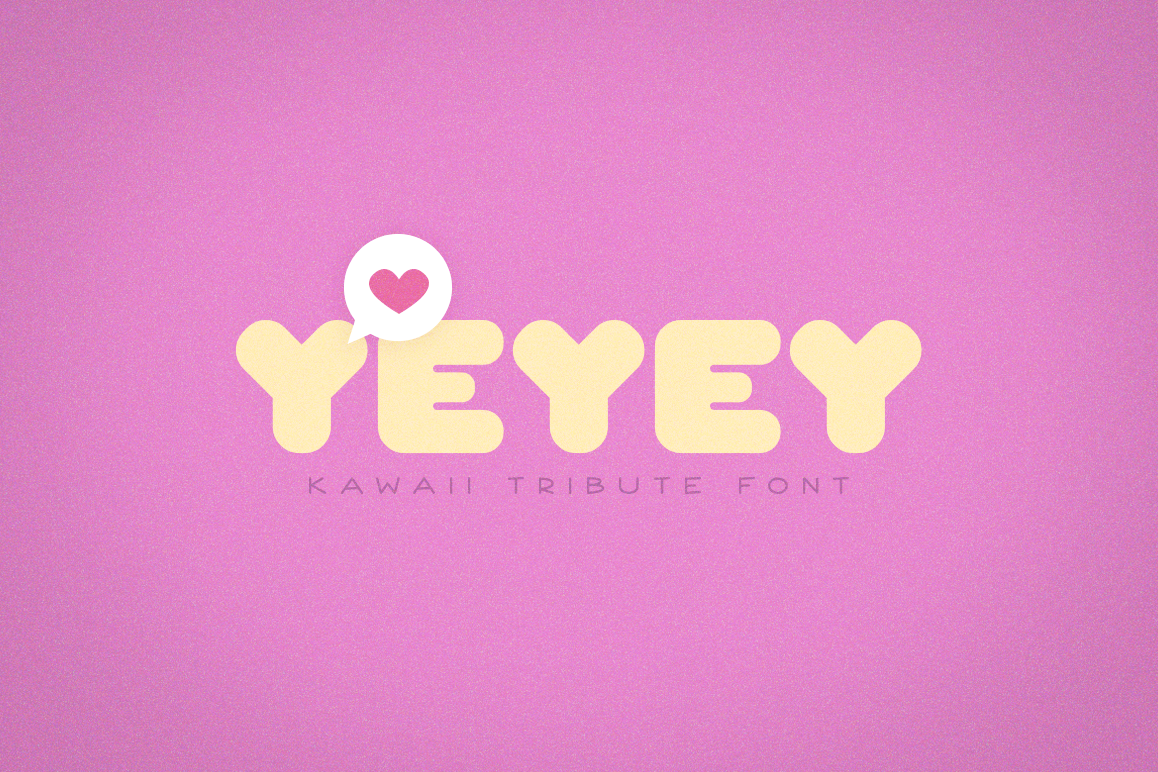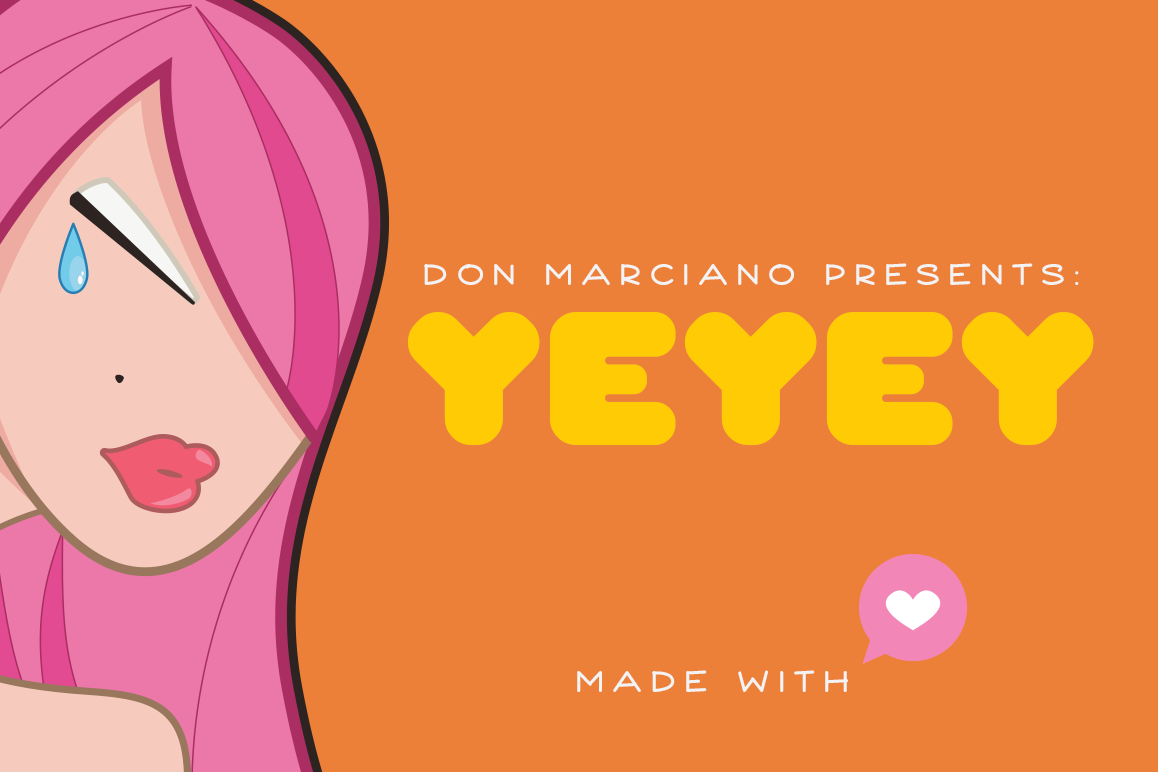
Yeyey - Kawaii
Yeyey is a kawaii revival font, design for a gift to a very special someone in my inner circle, that lives and breathe kawaii in almost every aspect of their life; inspired initially on chubbiness of iconic kawaii characters, with bold and curvy lines, comes a true kawaii loving typeface that knows the meaning of less is more and that cute is better than not cute at all. A .OTF files format with a total count of 212 glyphs, an all caps font with no variants that includes all numbers and punctuation. Enjoy!